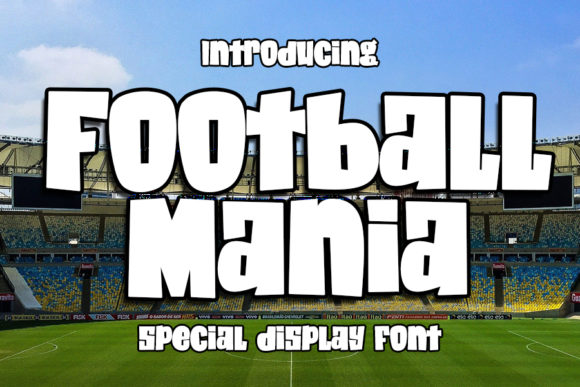
Journey into the world of sports enthusiasm with Football Mania Font, the ultimate display font that captures the electrifying atmosphere of the gridiron. This bold and thick lettered font is an ode to athleticism and team spirit, adding an instant touch of dynamism to your designs.
Immerse yourself in the passion of the game as Football Mania Font propels your creative visions to new heights. Its friendly and inviting demeanor makes it a versatile player, seamlessly adapting to a diverse range of contexts. Unleash your imagination and witness how this font transforms your projects into captivating masterpieces.
Picture the roar of the crowd, the clash of helmets, and the heart-pounding excitement of the field. Football Mania Font embodies this energy, injecting a sense of exhilaration into your designs. Let your words and visuals come alive with the competitive spirit and unwavering determination that define the sport.
Whether you're designing sports apparel, posters, flyers, or digital content, Football Mania Font is your secret weapon. Its bold strokes and distinct character demand attention, ensuring your messages hit their mark. Ignite the passion within your audience and create designs that resonate with their love for the game.
Football Mania Font is more than just a font; it's an experience. It's a gateway to the thrilling world of sports, where dreams are realized, and legends are made. Embrace the power of this font and watch as your designs transcend the ordinary, becoming emblems of athletic prowess and unwavering spirit.